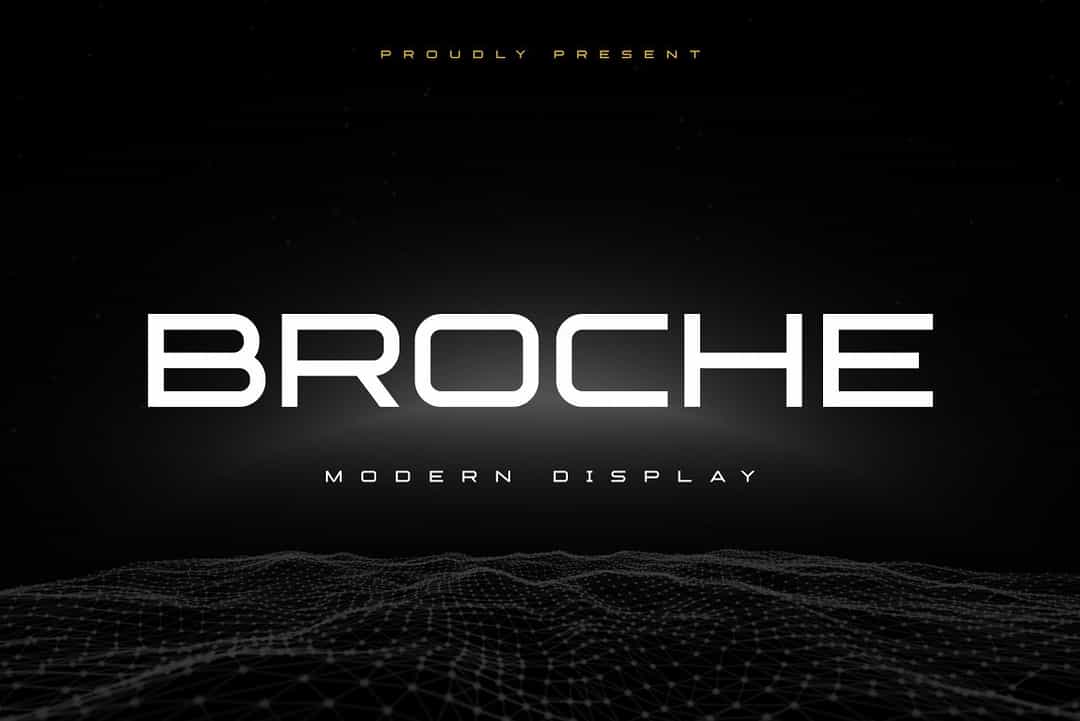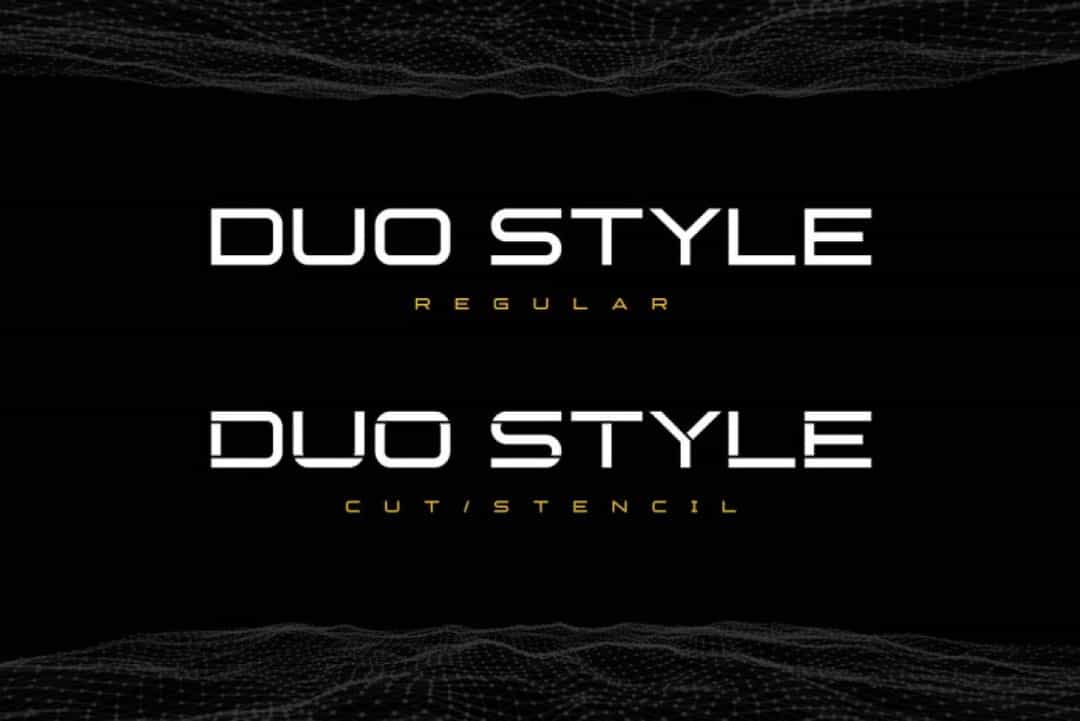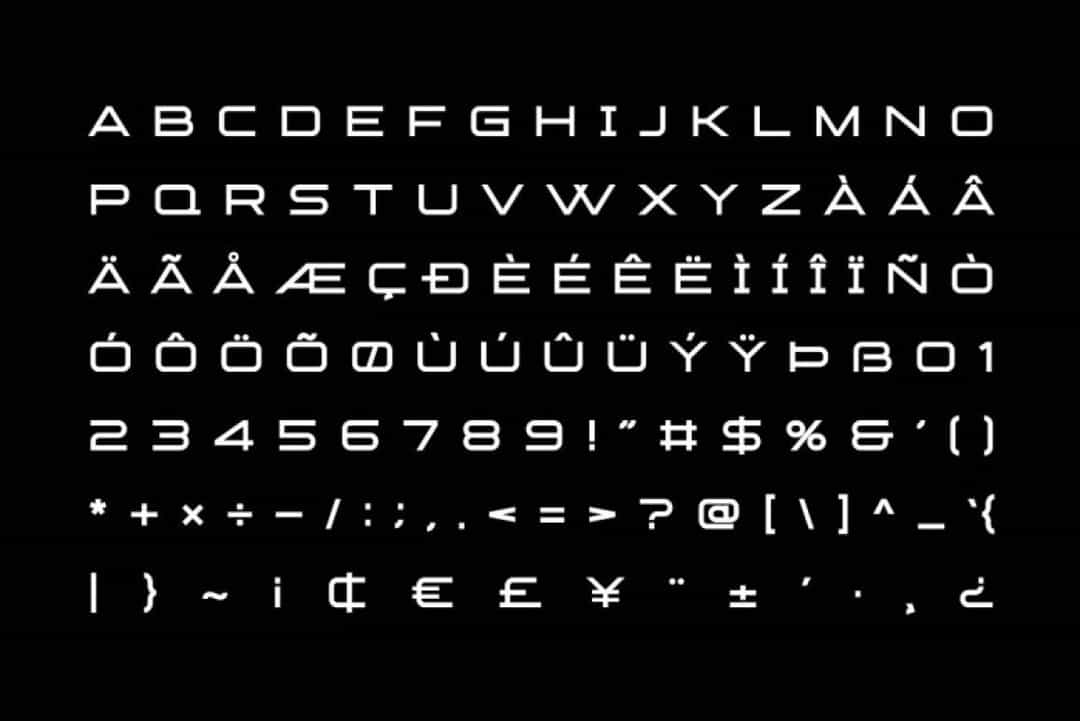
Broche Modern is an extremely versatile logo for technology companies and other brands that has long been recognized. Its strong features make it suitable for posters, t-shirt packaging, branding logotypes and much more.